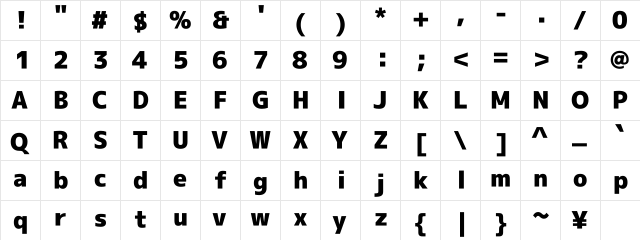
M+ 1c black Font Preview
M+ 1c black
Design Context for M+ 1c Typeface
M+ 1c is a composed and adaptable typeface that performs quietly and consistently across a wide range of design contexts.